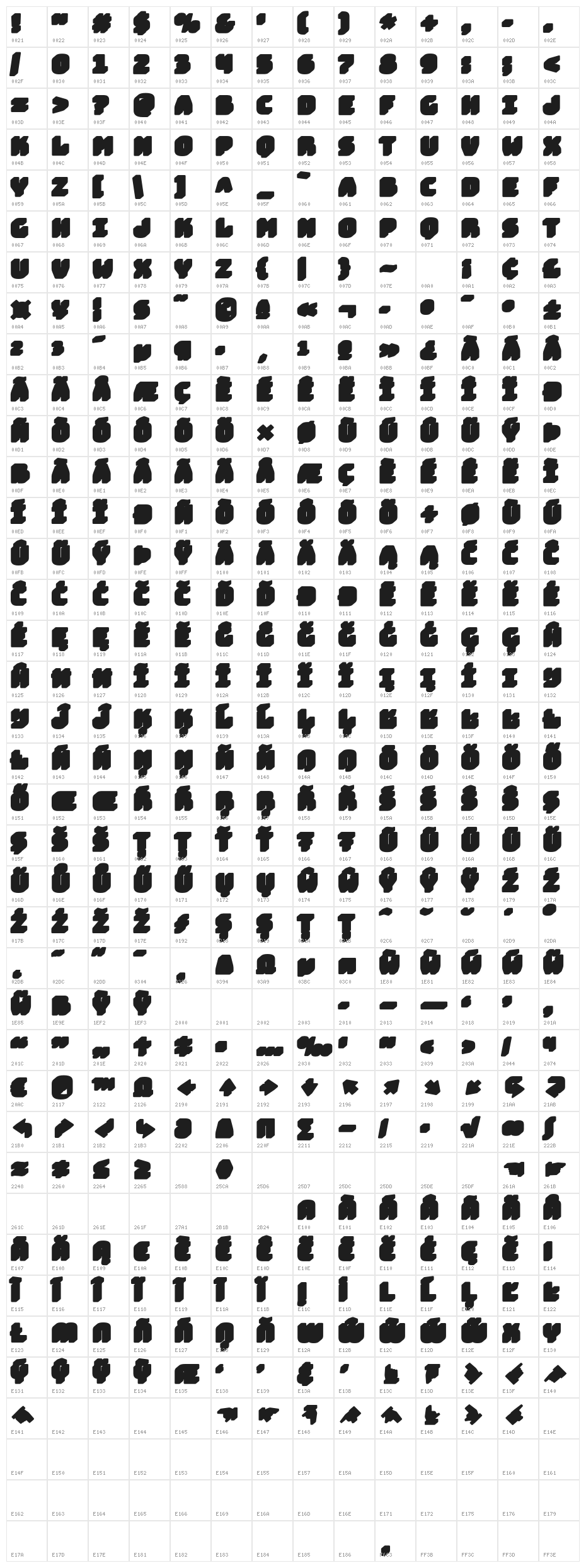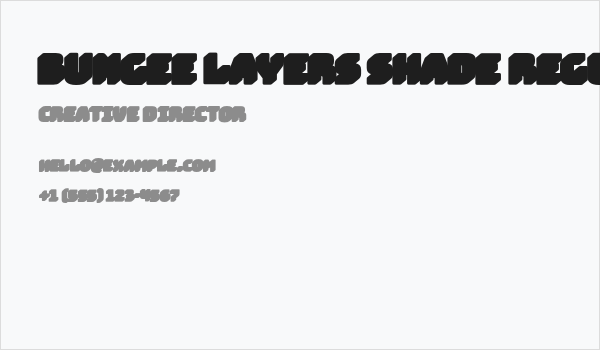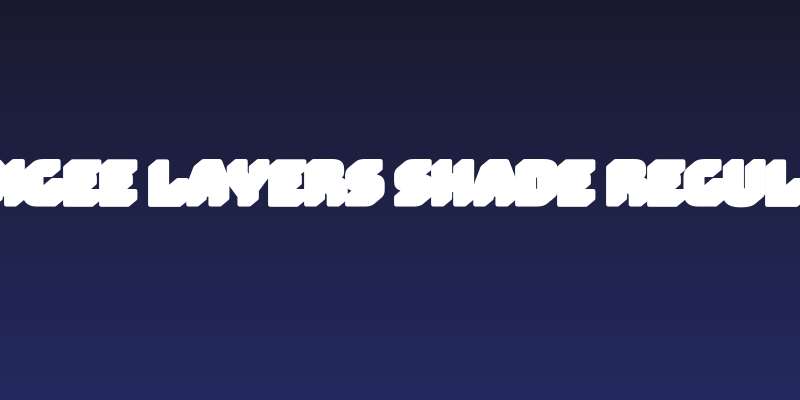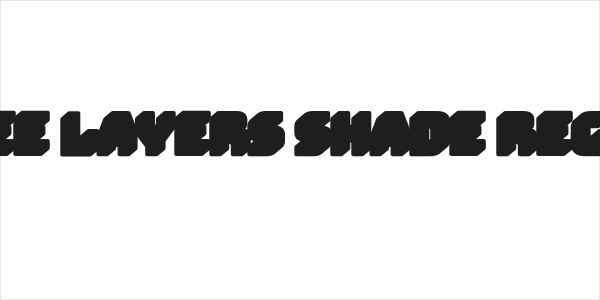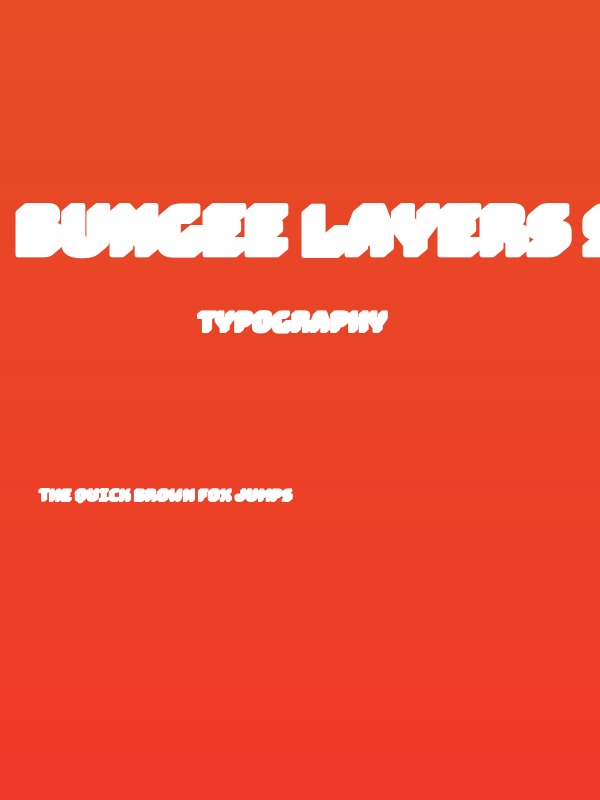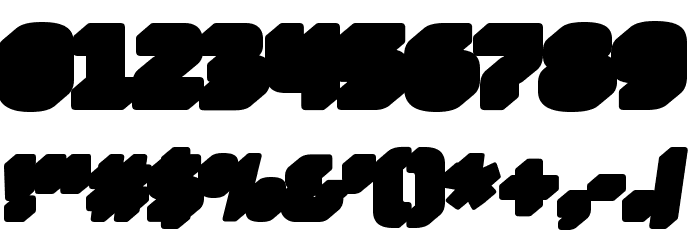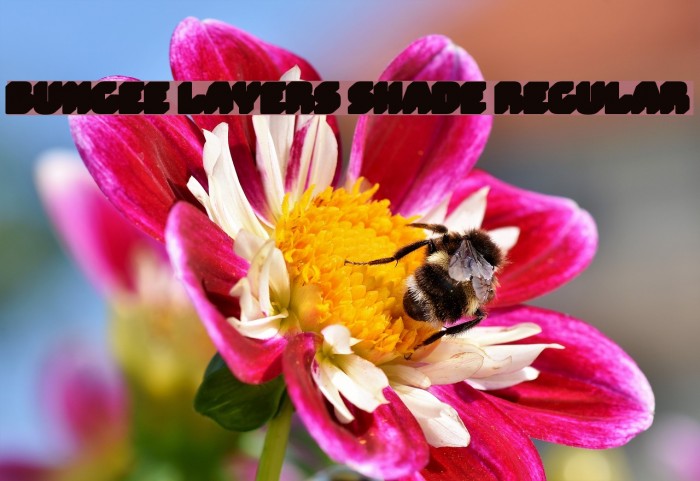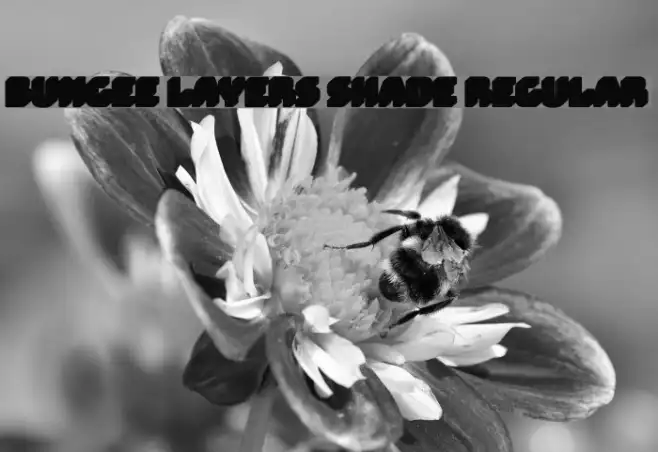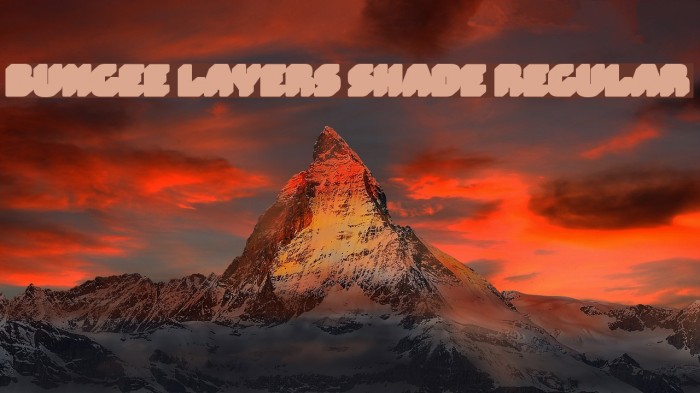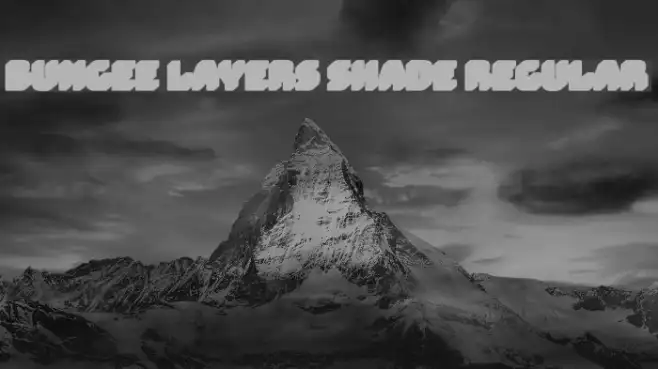
Bungee Layers Shade Regular Font
Bungee Layers Shade Regular Description
This font features a bold, layered design with a distinct shadow effect that gives it a three-dimensional appearance. The characters are wide and blocky, with a playful and dynamic style that stands out. The uppercase and lowercase letters maintain a consistent weight and width, creating a uniform look across the alphabet. Numbers and special characters are equally bold and maintain the same shadowed effect, ensuring consistency throughout. The font's unique style makes it ideal for eye-catching designs and projects that require a strong visual impact.
| Proposed Projects | Ideal for posters, headlines, logos, and any design requiring a bold, eye-catching font. |